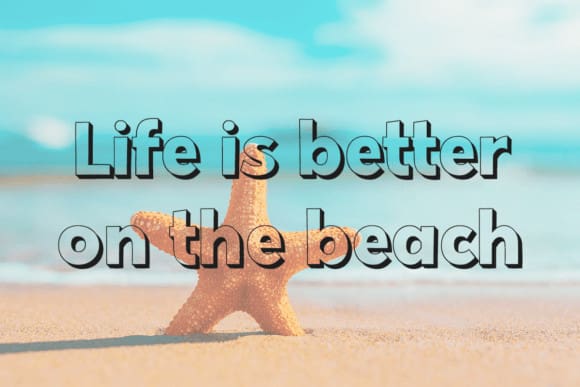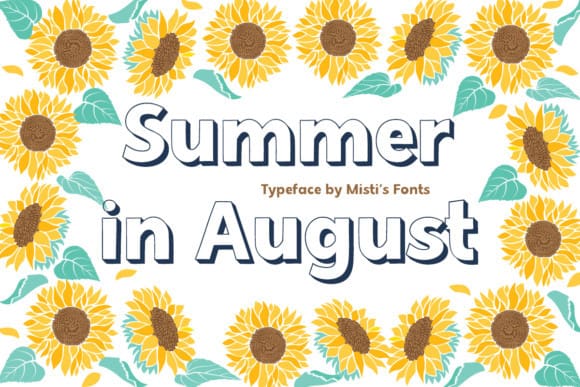
Summer In August
Summer In August Font a vibrant outline drop shadow sans serif font that brings a touch of sunshine to your designs. Perfect for eye-catching headlines, playful posters, and creative projects, its bold, clean lines and unique shadow effect evoke the warmth and fun of summer.